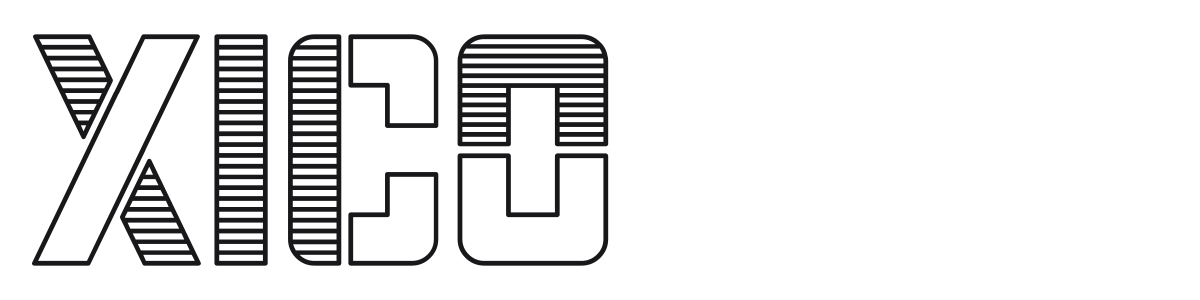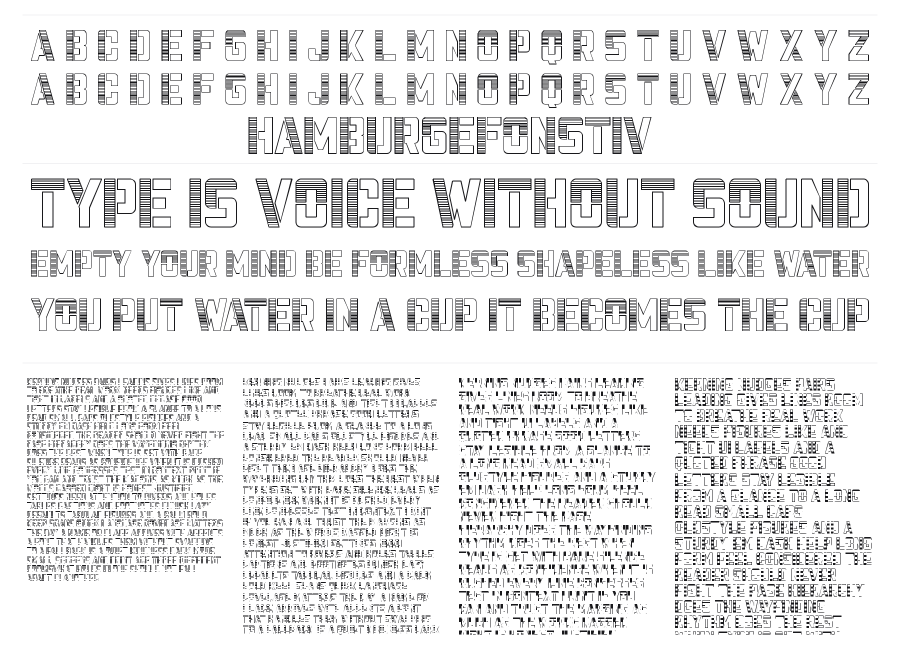
Xico
by Swadharma Wiyastana
Xico is a condensed geometric display font built around a striking outline-with-horizontal-stripe fill treatment. The interior striping gives each character a screen-printed, athletic poster quality that reads instantly at large sizes. It pulls from constructivist and mid-century sport graphics traditions without feeling like a direct revival.